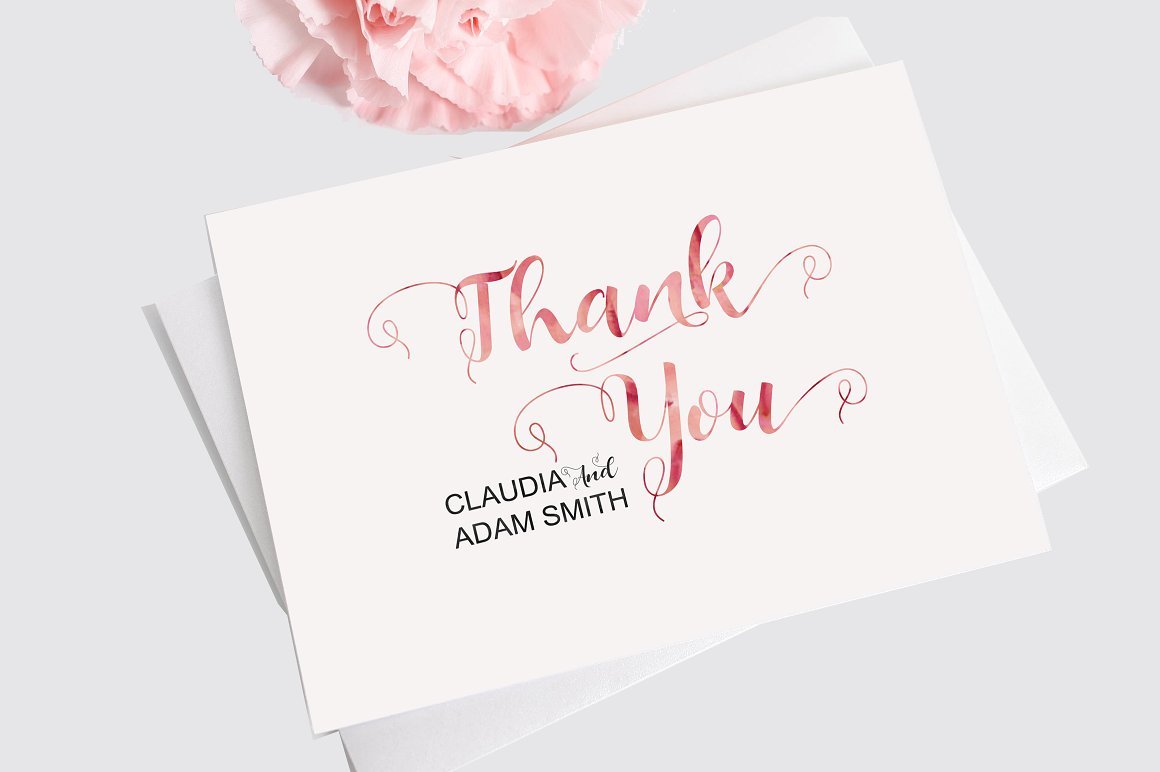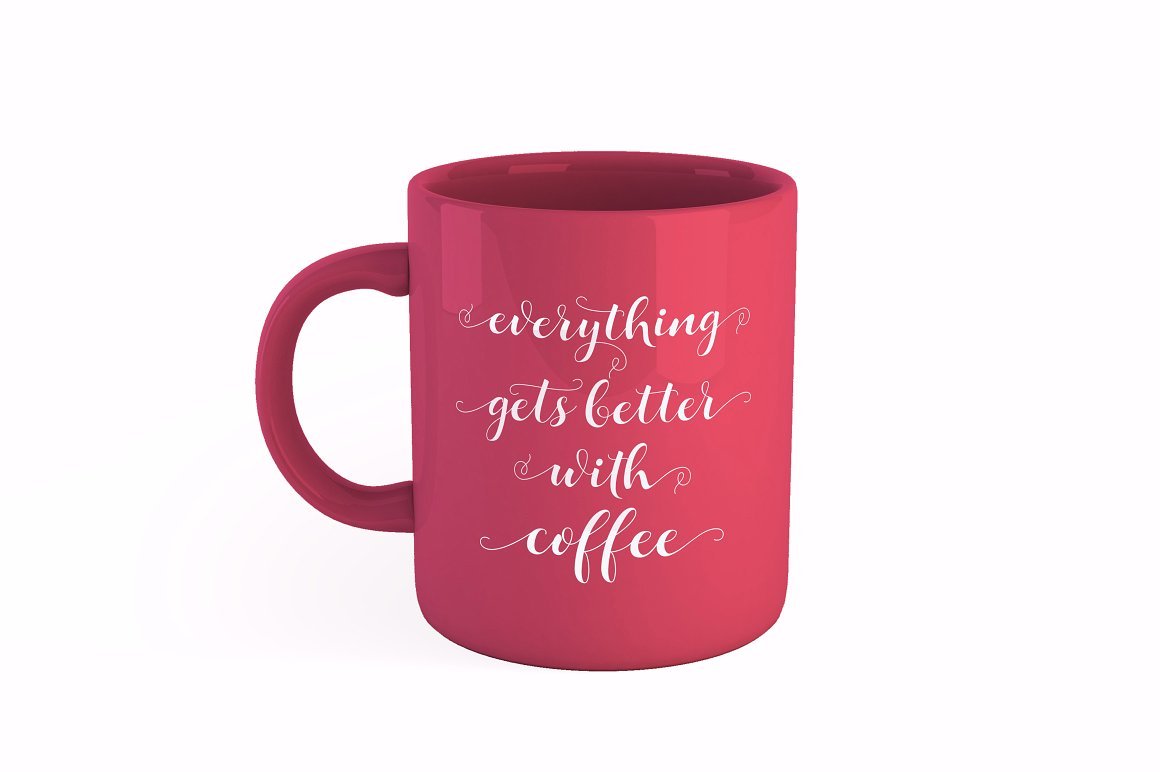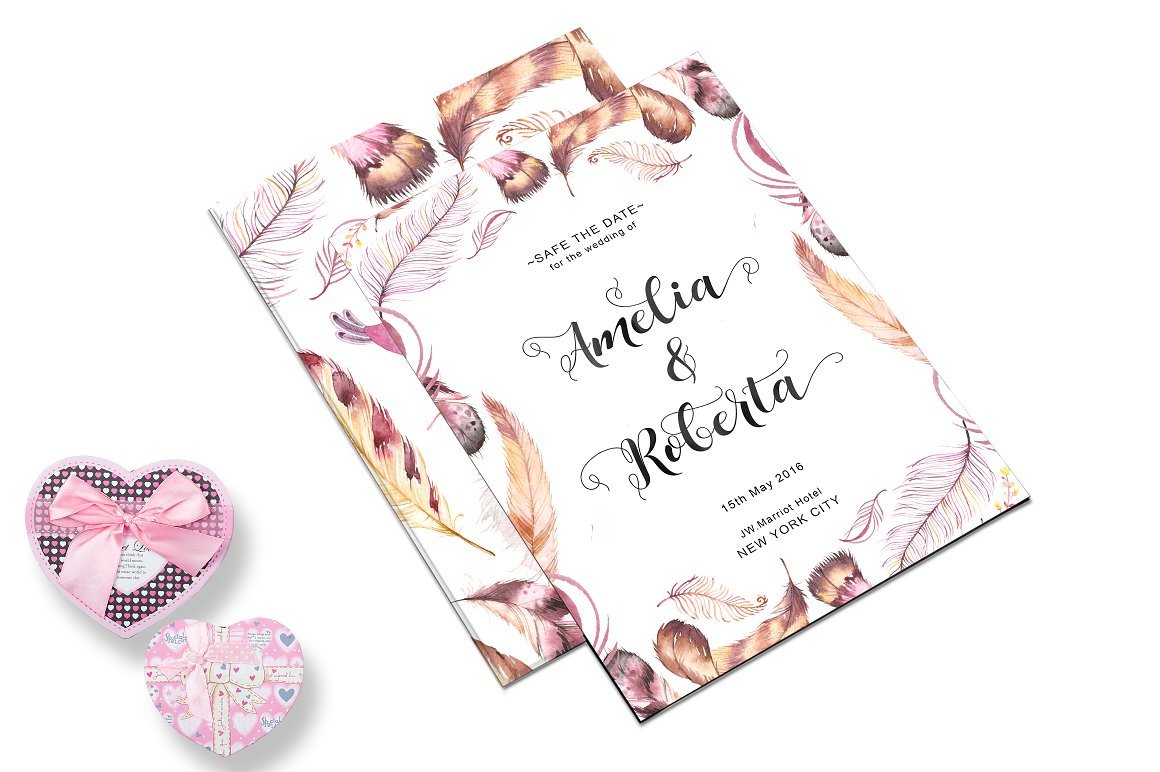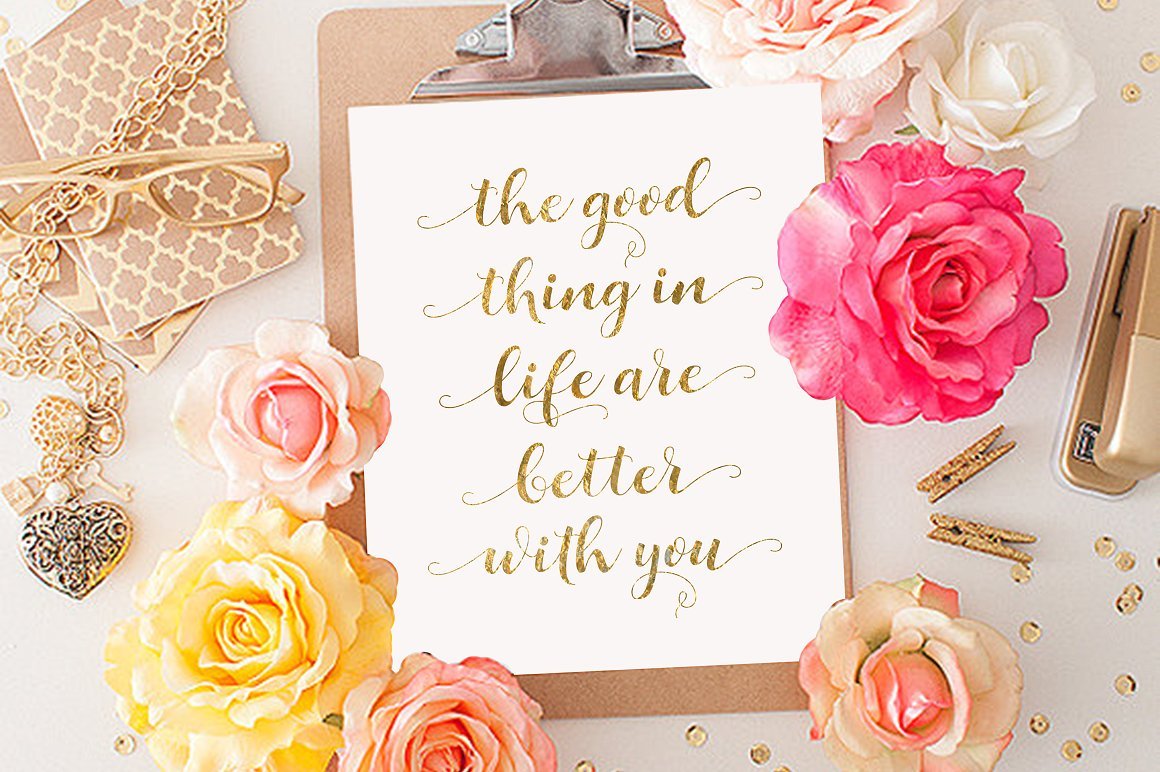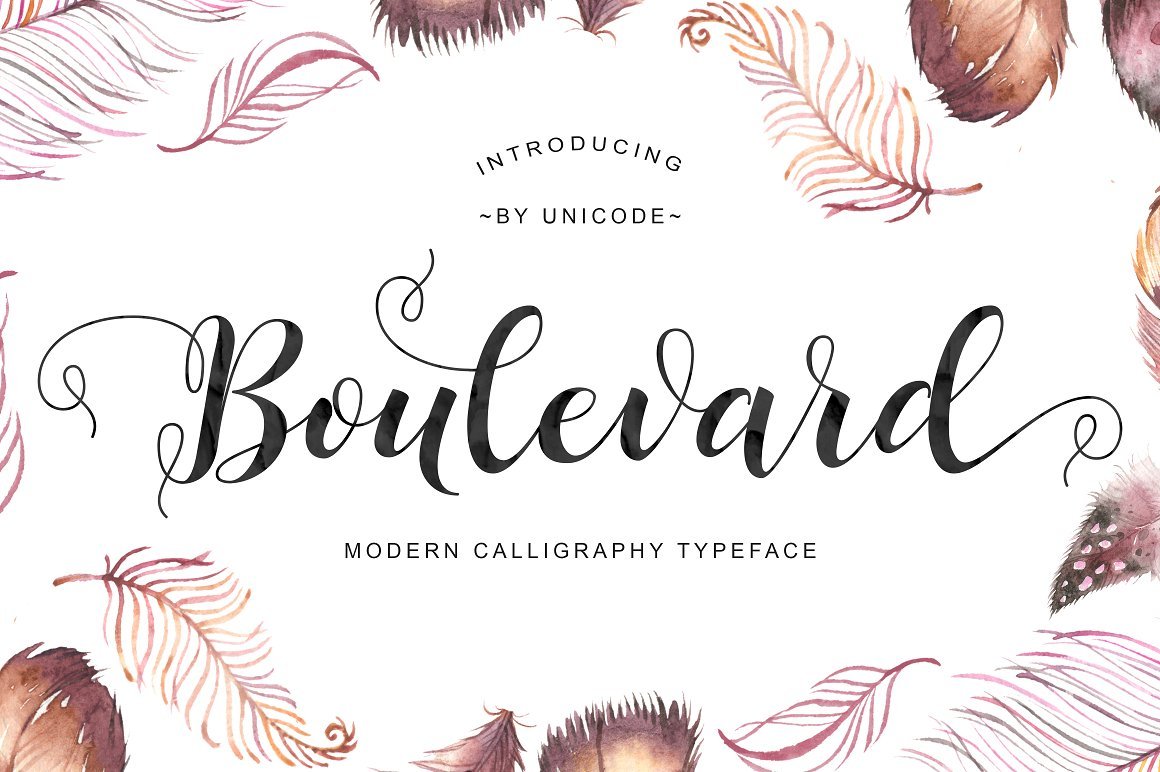
Boulevard Script Font
A gorgeous and simple handwritten script font; contemporary and fashionable, looks great for a large range of project types. Introducing Boulevard Font. Bigstorm is a unique hand made font that will capture the attention at glance. This font is perfect to be used as signature, headline, lettering quotes, wedding invitation, fashion, etc. It also comes in uppercase, lowercase, punctuations, symbols & numerals, stylistic set alternate, ligatures, etc also support multilingual.